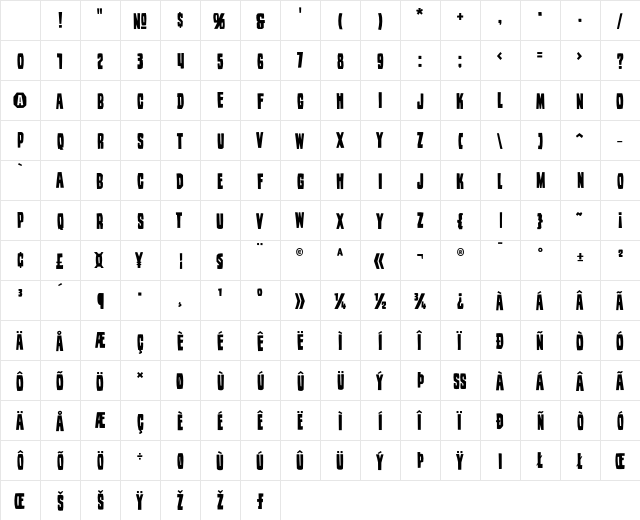
Complete Wood Stamp Regular glyph index. Displaying only characters natively supported by Wood Stamp Regular font.
Wood Stamp echoes the hand-painted signage and woodblock typography of the American frontier, with a warm, rugged personality.
Font Pairing: Combine Wood Stamp with a simple slab or neutral sans - period-accurate companions reinforce the vintage feel without competing for attention.
Pro Tip: Use Wood Stamp for short, impactful bursts of text - it shines in poster headlines and product names rather than extended copy.